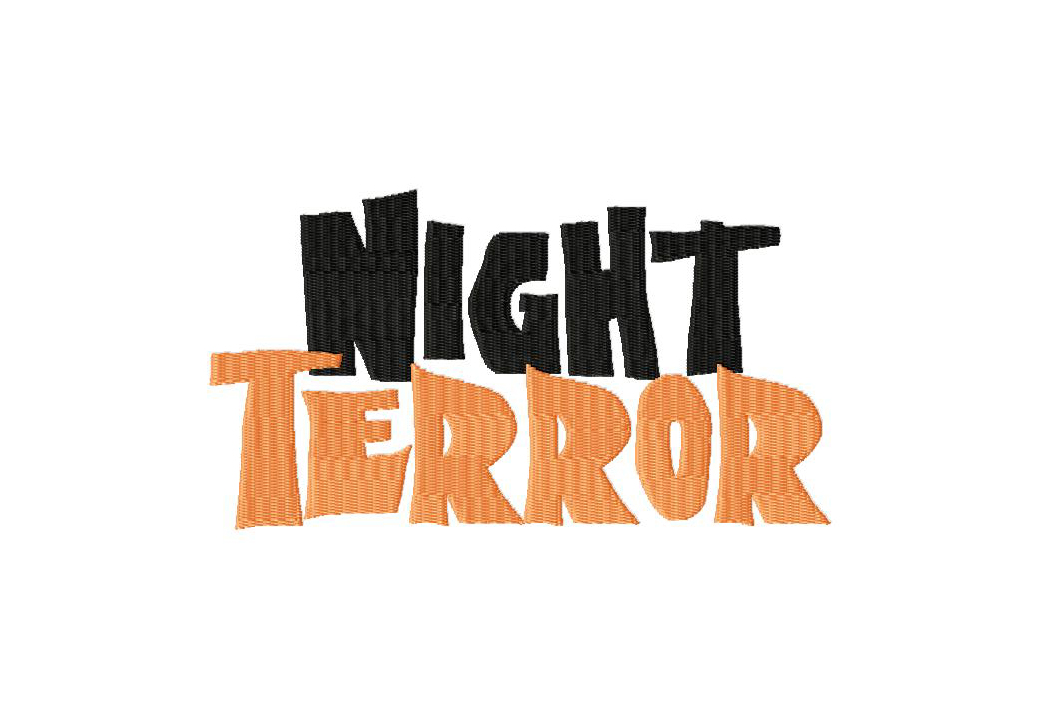
Today's free embroidery design monogramming alphabet will frighten and terrify when you stitch it out on all of your Halloween projects. Use it to personalize a costume for a spooky touch. Download it for free for today only!
The Night Terror Machine Embroidery Font Set includes 26 Complete alphabet Letters in 1" 2" and 3" Sizes